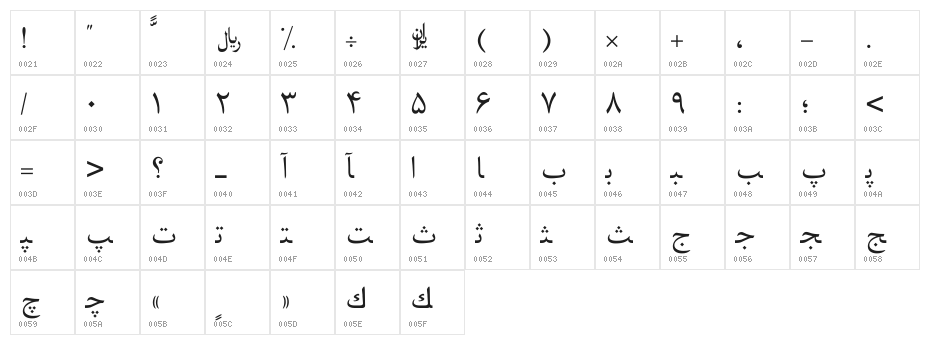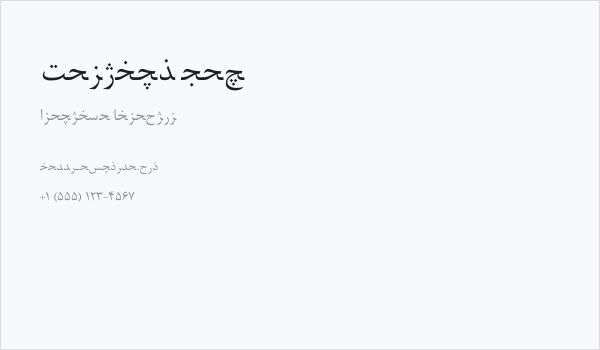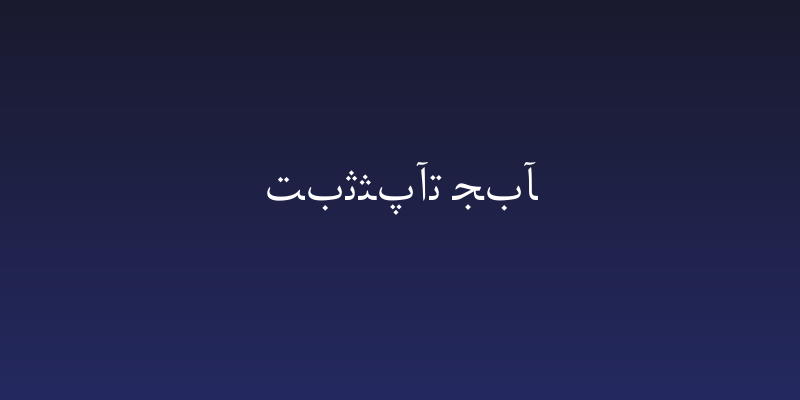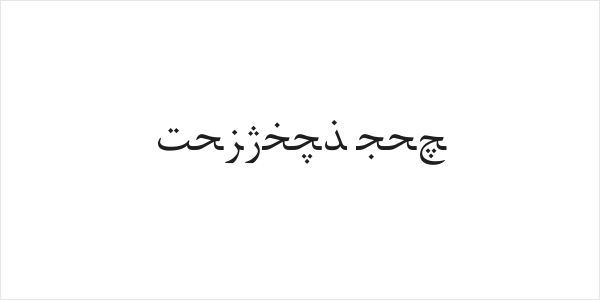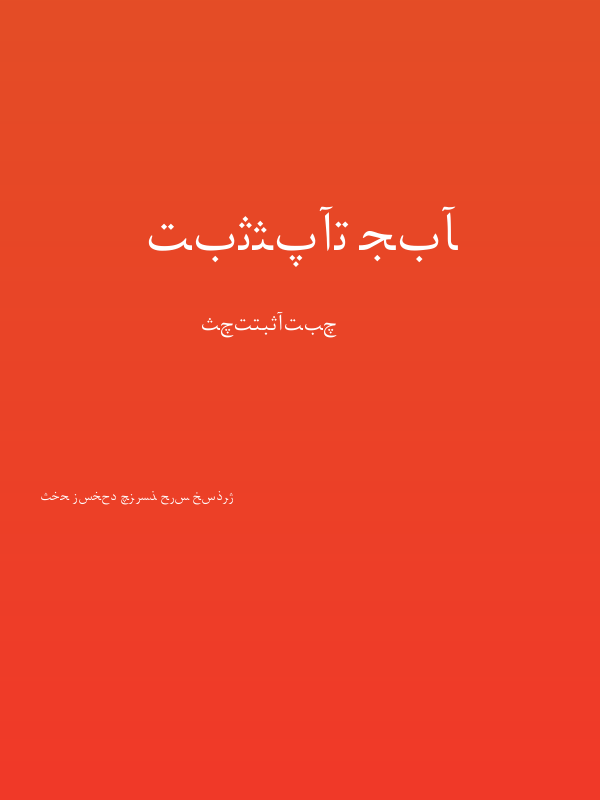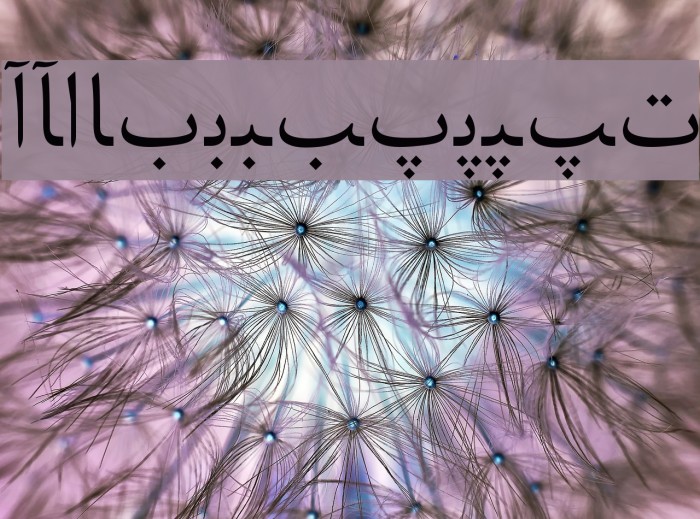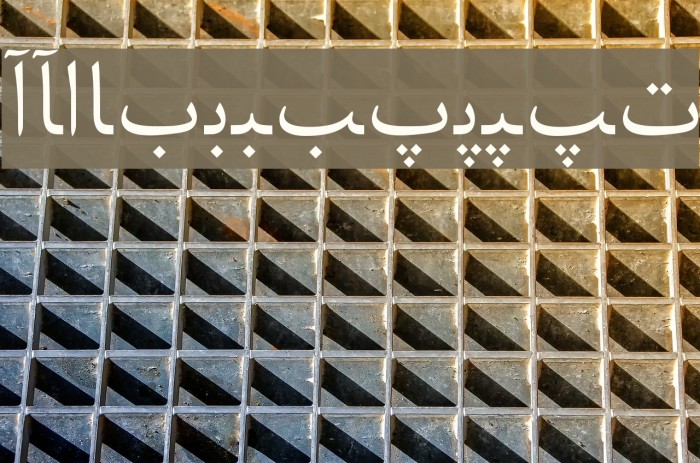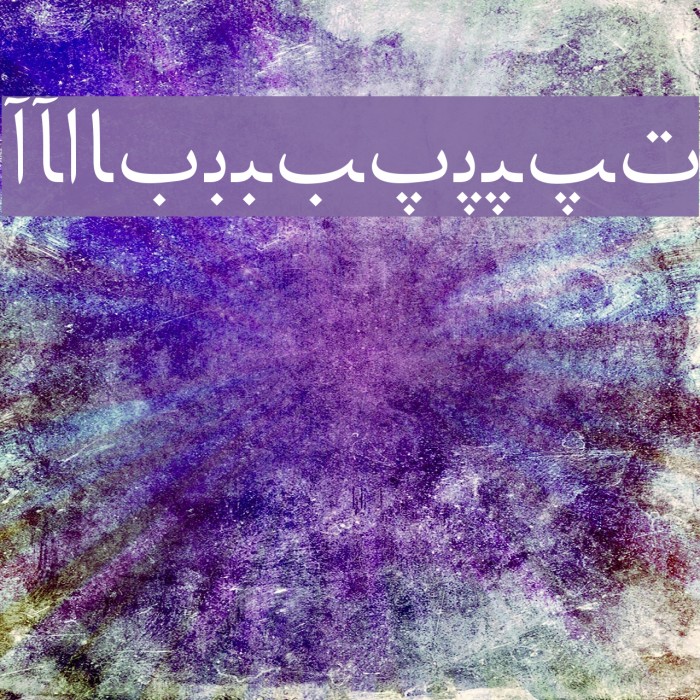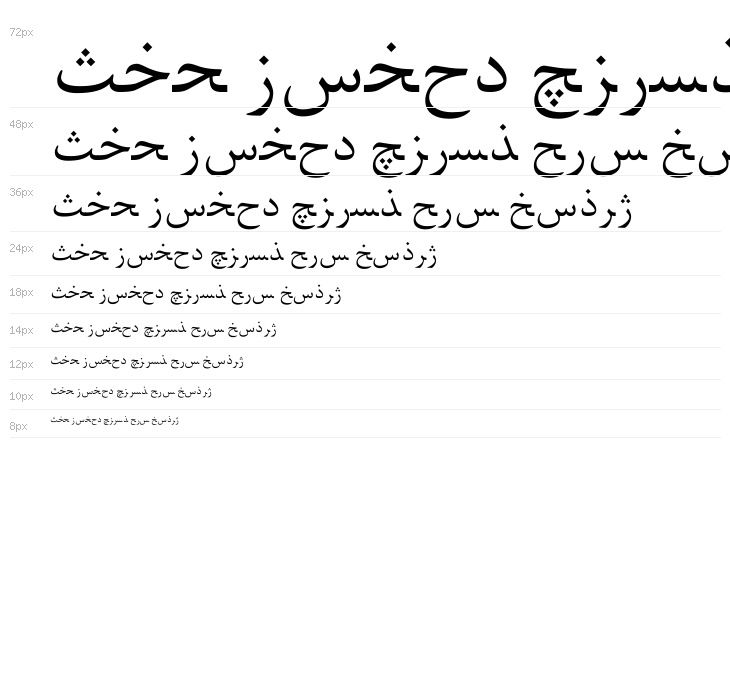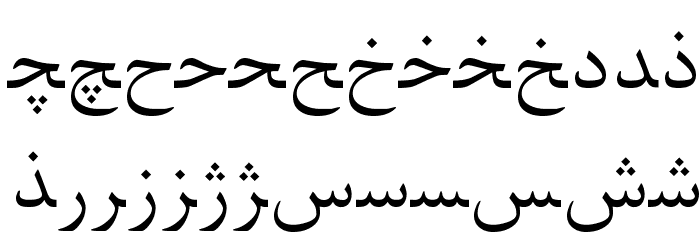
Persian Web Font
Persian Web Description
This font features a traditional Persian script style, characterized by elegant curves and a flowing, calligraphic form. The characters are gracefully connected, with a harmonious balance between thick and thin strokes. The font exhibits a classic aesthetic, suitable for conveying a sense of cultural heritage and sophistication. The numerals and special characters maintain the same stylistic elements, ensuring consistency throughout the typeface. This font is ideal for projects that require an authentic Persian touch, such as cultural publications, artistic designs, and formal invitations.
| Use Case | Headlines, Artistic designs, Cultural publications |
| Proposed Projects | Cultural publications, artistic designs, formal invitations, and branding materials. |